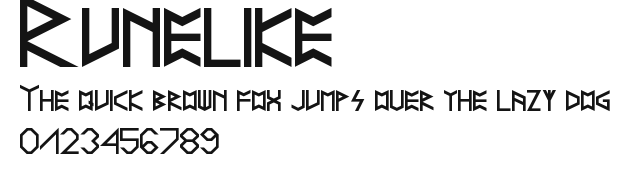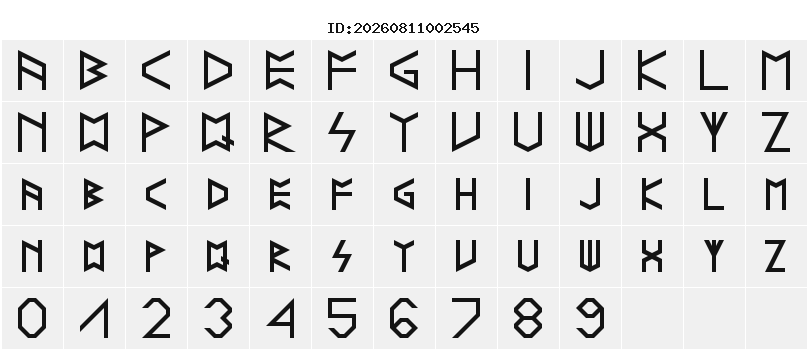
• Font Name: Runelike
• Designer: Kiedra
• Description: ‚ÄúRunelike‚Äù was built with FontStruct
About Runelike.ttf
Runelike.ttf is a modern, elegant sans-serif font designed for ultimate readability and visual harmony. Perfect for branding, headlines, web design, and print materials.